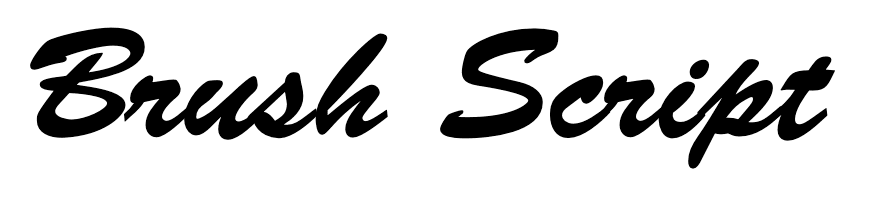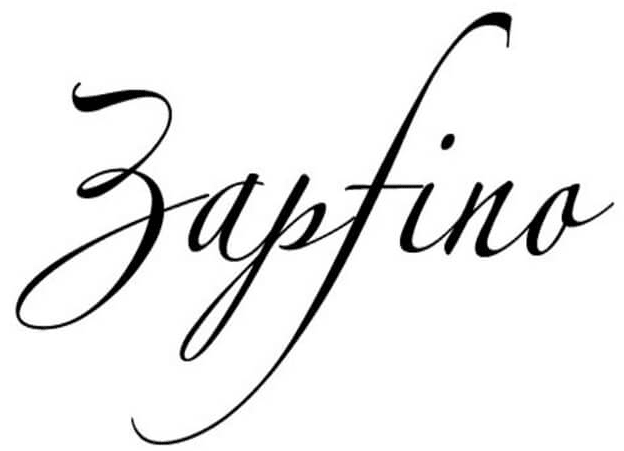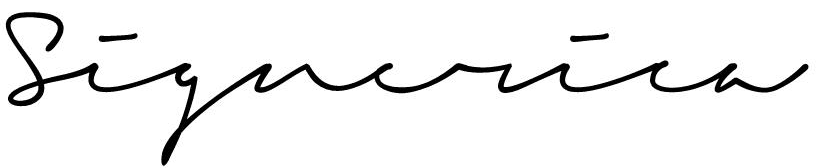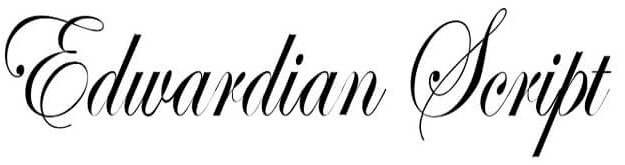
30+ Best Signature Fonts in Word for Certificates (2026)
If you are choosing a signature font in Word, it is usually for one of two reasons: a personal touch on a printed document, or a finishing flourish on a certificate or diploma. This list covers 30+ of the best signature fonts in Word for both cases, with installation steps, font pairings, and notes on which ones look like a real handwritten signature.
Looking to include a touch of personalization and advancement in your Word reports? This article will list the best signature fonts in Word, and also highlight the best cursive fonts and microsoft word cursive fonts as part of the selection process, since choosing the proper signature text style can have a critical effect on the by and large style. Here, we’ve curated a list of 25+ best signature textual styles that can consistently join into your Word reports. These textual styles extend from rich and conventional to present-day and in vogue, permitting you to discover the culminate fit for your one-of-a-kind fashion.
Upgrade the visual offer of your composed substance and make an enduring impression by selecting one of these carefully chosen signature fonts. Whether you’re making proficient reports, creative projects, or indeed investigating micro-credentials within the domain of advanced aptitudes, the correct font can elevate your work to an entire modern level. These fonts are also ideal for enhancing digital text, making your documents stand out in digital formats. Explore our selection and discover the perfect signature textual style that reverberates along with your individual or proficient character. For those issuing and managing digital certificates and badges, digital credentials are essential for official recognition, and using a word signature font can add a personalized touch to your certificates and badges. Learn how to write a signature in Word using these fonts to further personalize your digital documents.
Introduction to signature fonts
Signature fonts are more than just a stylish choice they’re a powerful way to add a personal touch and elevate the professionalism of your documents, emails, and digital communications. The right signature font can instantly convey elegance, sophistication, and credibility, making your work stand out and leaving a lasting impression. Whether you’re finalizing legal documents, designing creative projects, or simply looking to enhance your email signature, choosing the best signature font is essential.
There are many types of signature fonts to consider. Cursive fonts like Brush Script and Segoe Script offer a flowing, handwritten feel that mimics actual signatures, while handwriting fonts such as Lucida Handwriting provide a more casual, personal touch. These fonts are perfect for digital signatures, adding authenticity and style to your Word documents. From formal legal documents to creative projects, the right signature font can help you create a unique, memorable mark that reflects your personal or professional brand.
Understanding the different styles cursive, script, and handwriting fonts will help you select the best signature font for your needs. Whether you want to add a sense of elegance to your documents or create a signature that feels truly personal, exploring the world of signature fonts is the first step to making your mark.
Brush Script
Brush Script MT is a cursive text style used in Microsoft Word for creating personalized marks. Brush Script MT is a popular cursive signature font in Word, known for its fluid, expressive style that mimics paintbrush strokes. Its fluid strokes and imaginative energy add class to documents. Its agile bends and smooth lines create a unique, individual touch, making it a popular choice for transcribed mark signatures.
Lobster
“Lobster” may be an in-vogue script text style that oozes a written-by-hand and personalized feel, making it a well-known choice when looking for the finest signature textual styles in Word. Its rich bends and streaming strokes allow archives an unmistakable touch, mirroring the ease of a signature. When considering “best signature fonts in Word,” the charm of “Lobster” lies in its capacity to communicate a sense of independence and advancement, making your content outwardly engaging and unmistakable. So, for those looking to improve their reports with signature-like energy, “Lobster” stands out as a critical choice inside the domain of textual style determinations in Microsoft Word.
Lucida Calligraphy
“Lucida Calligraphy” is a cursive font in Word, known for its signature text style. Its rich, flowing plan resembles traditional calligraphy, making it perfect for creating personalized marks. The smooth strokes add sophistication, making your signature more authentic and visually appealing.
Vivaldi
“Vivaldi” could be a script textual style that oozes tastefulness and advancement. With its smooth and streaming strokes, it captures the quintessence of manually written script, making it a great choice for making a personalized and in-the-best signature in Word. The particular bends and circles of “Vivaldi” include a touch of energy and distinction, guaranteeing that your signature stands out. When looking for the finest signature fonts in Word, consider the immortal request of “Vivaldi” to implant your reports with a signature fashion that combines polished skill and creative charm.